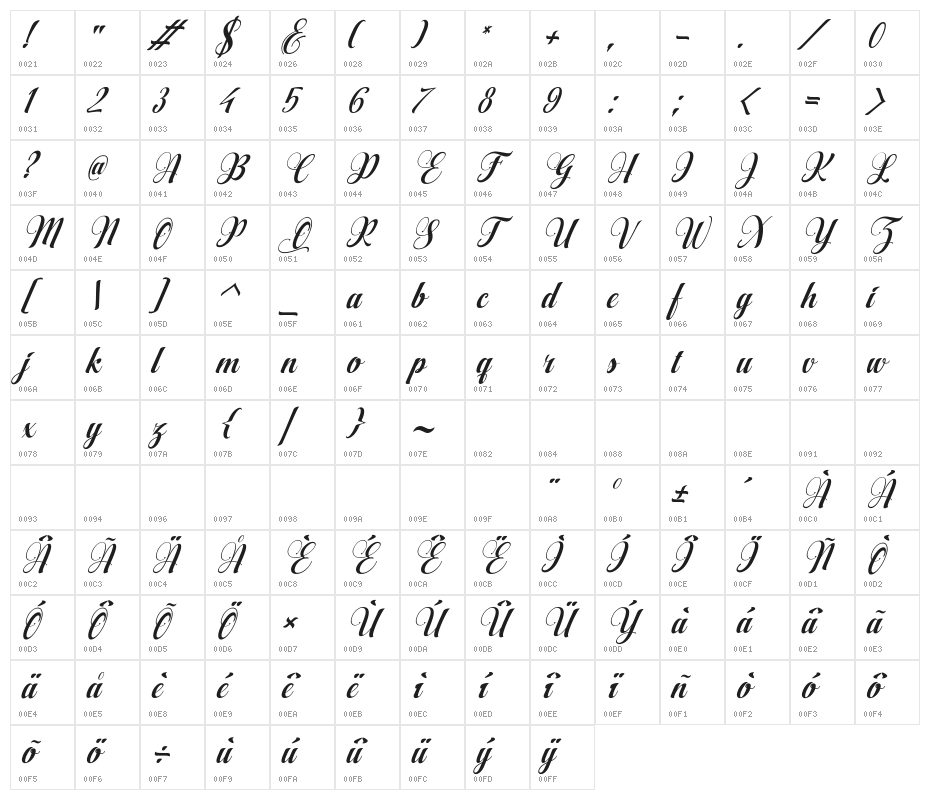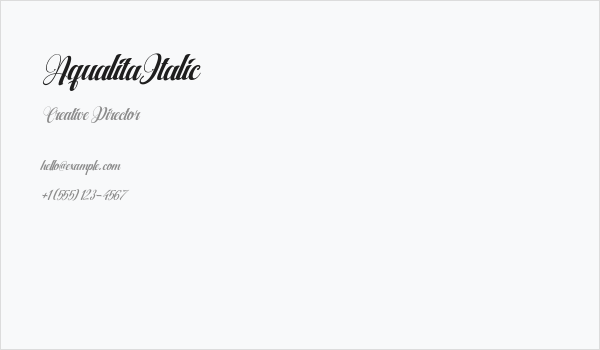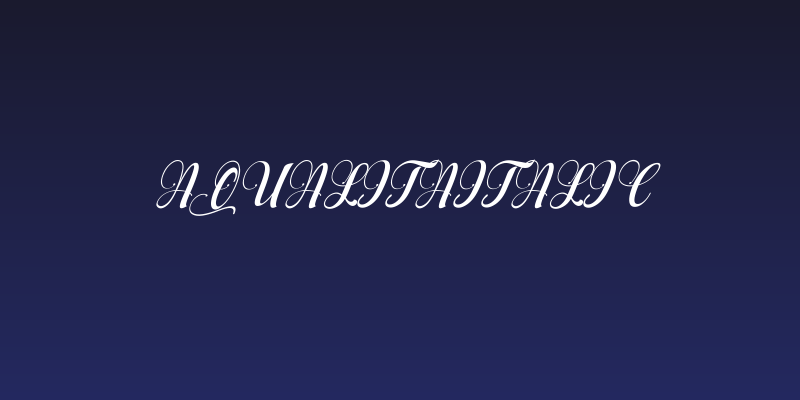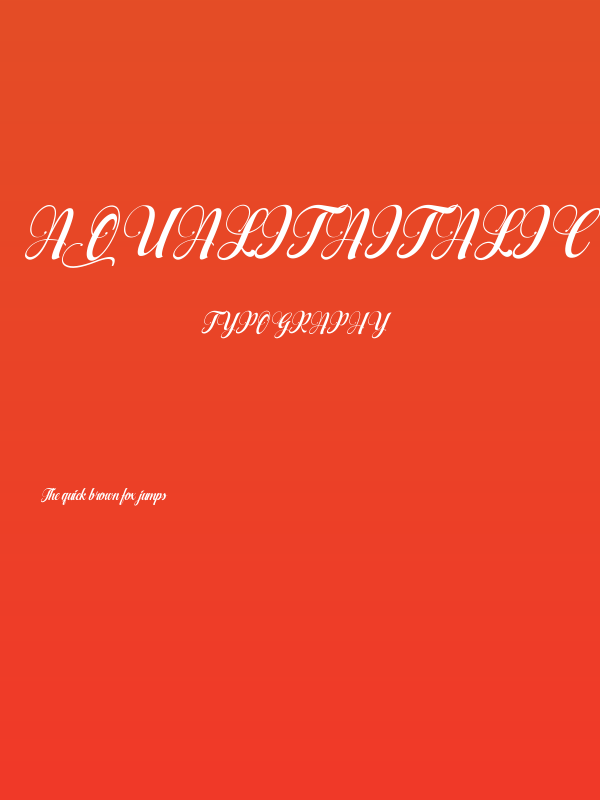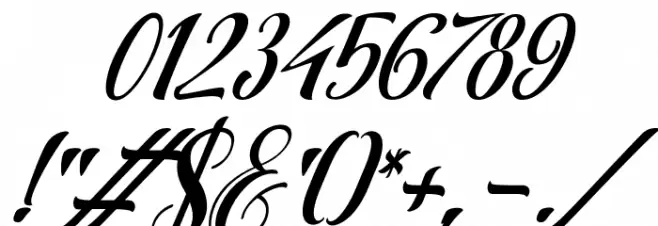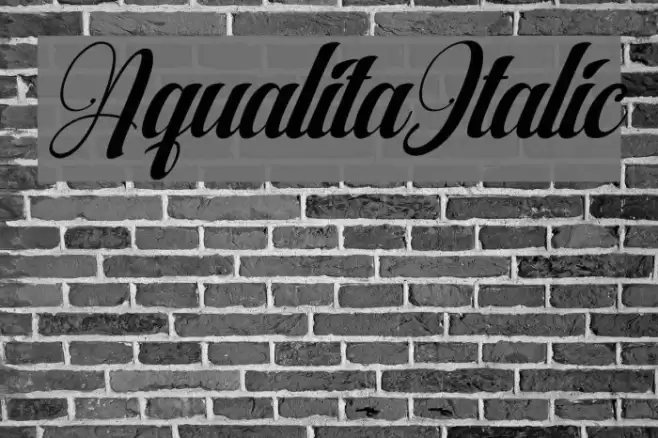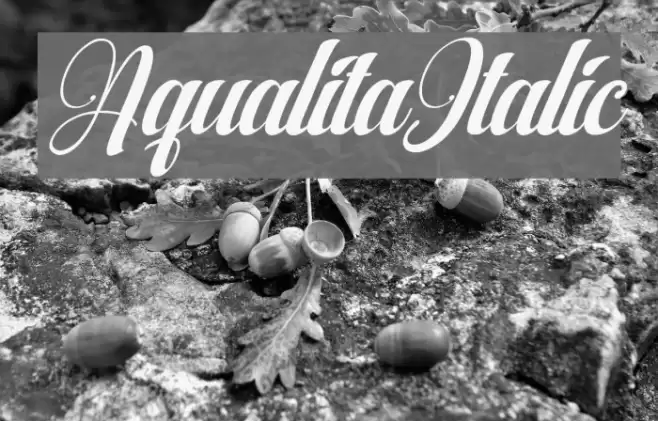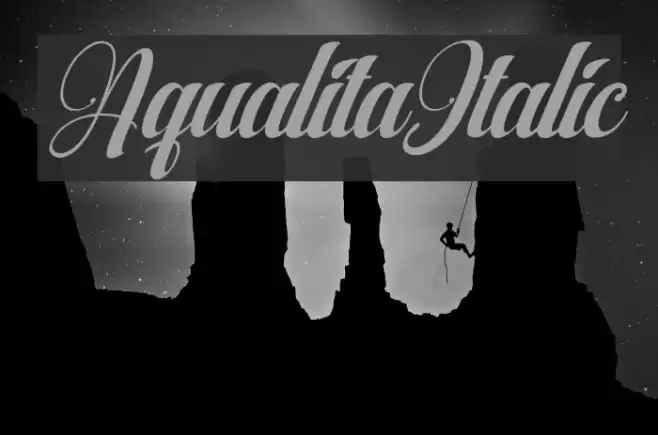
AqualitaItalic Font
AqualitaItalic Description
This elegant script font features a flowing, cursive style with a sophisticated flair. The characters are interconnected with smooth, sweeping strokes, giving it a graceful and fluid appearance. The uppercase letters are ornate, with intricate loops and flourishes, while the lowercase letters maintain a consistent rhythm and balance. The numerals and special characters are designed to complement the overall aesthetic, maintaining the same elegant curves and lines. This font exudes a sense of luxury and refinement, making it ideal for projects that require a touch of class and elegance.
| Overall Style | Elegant |
| Use Case | Logos, Invitations, Branding |
| Proposed Projects | Ideal for wedding invitations, luxury branding, elegant signage, and high-end product packaging. |